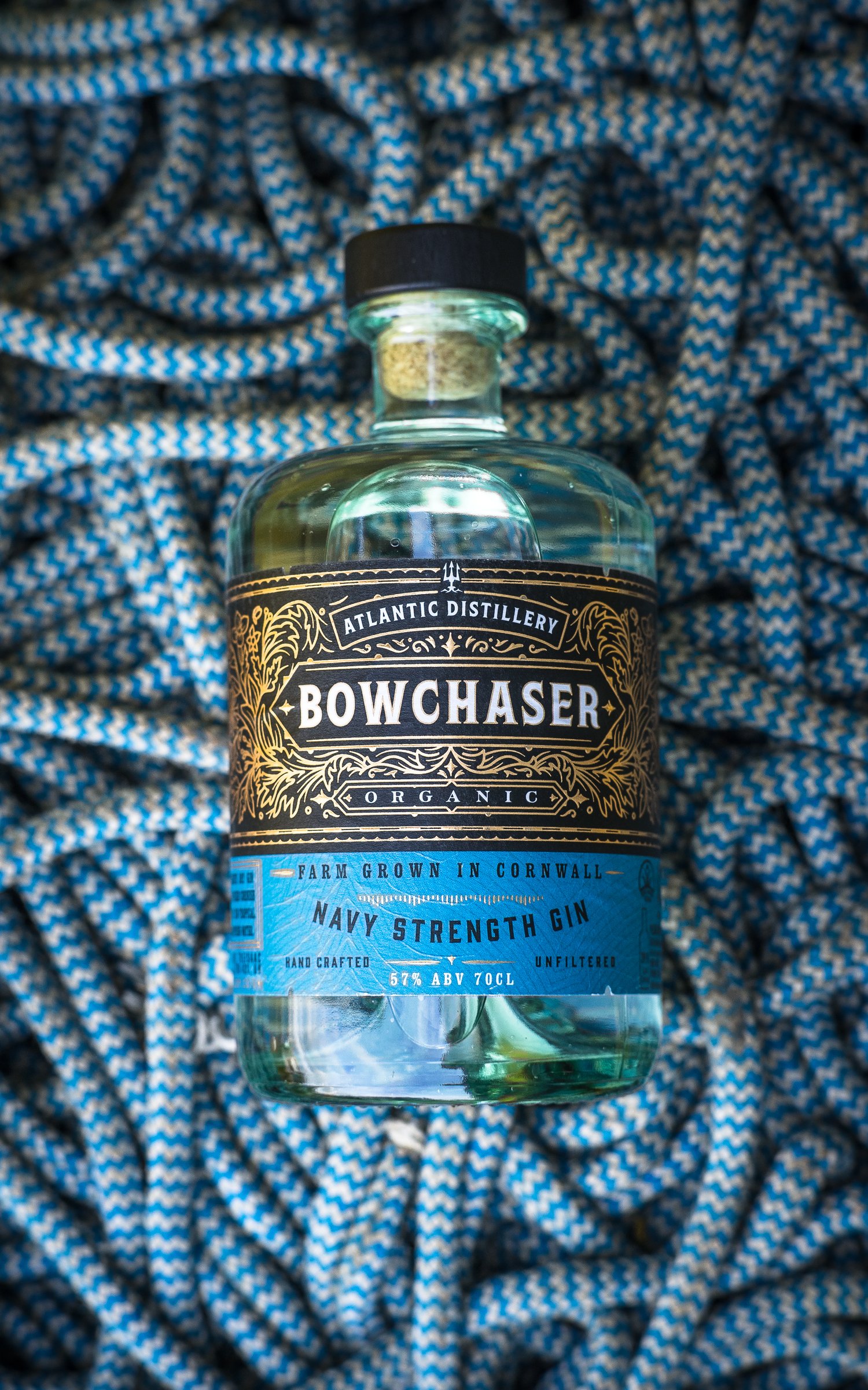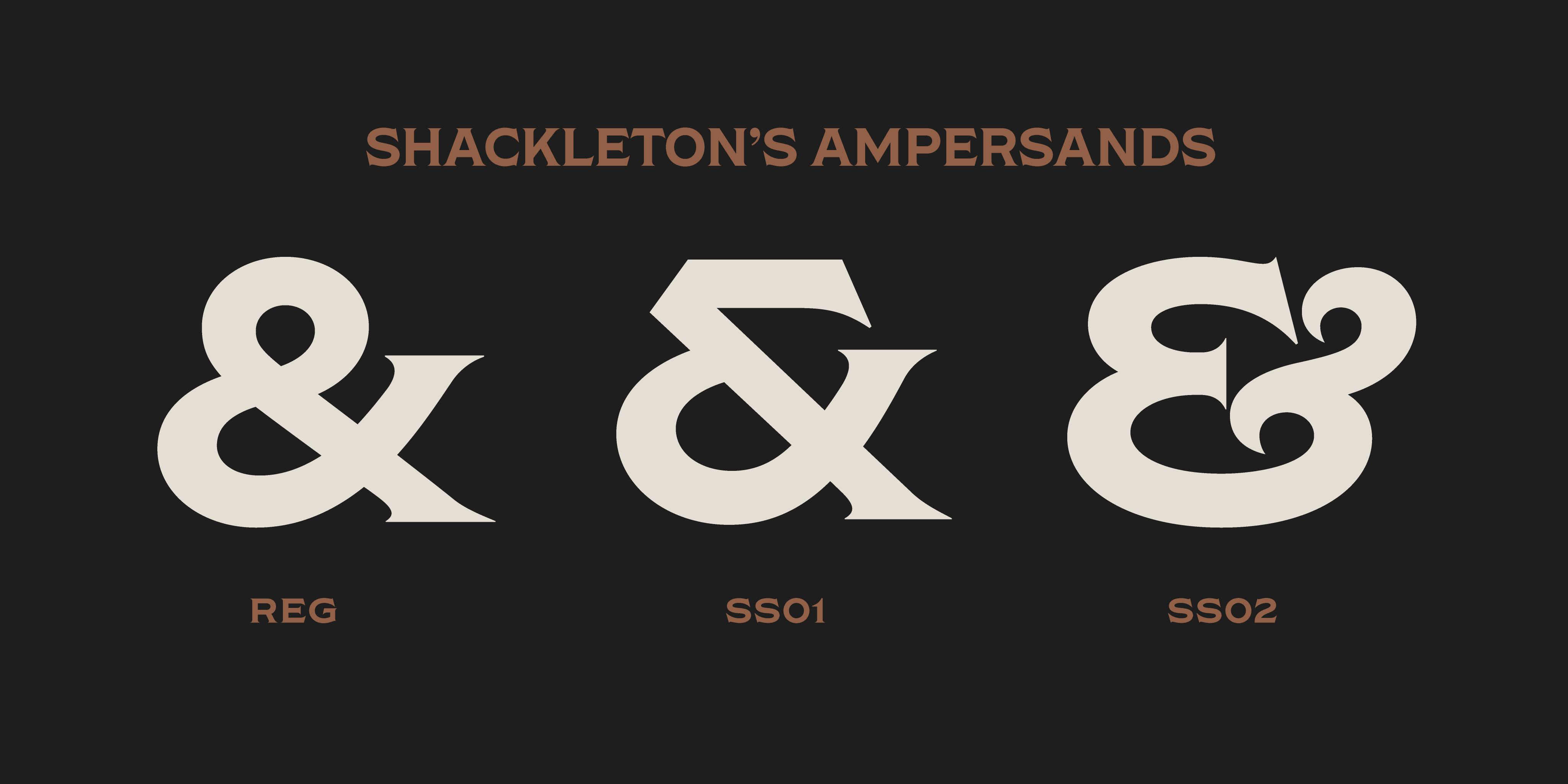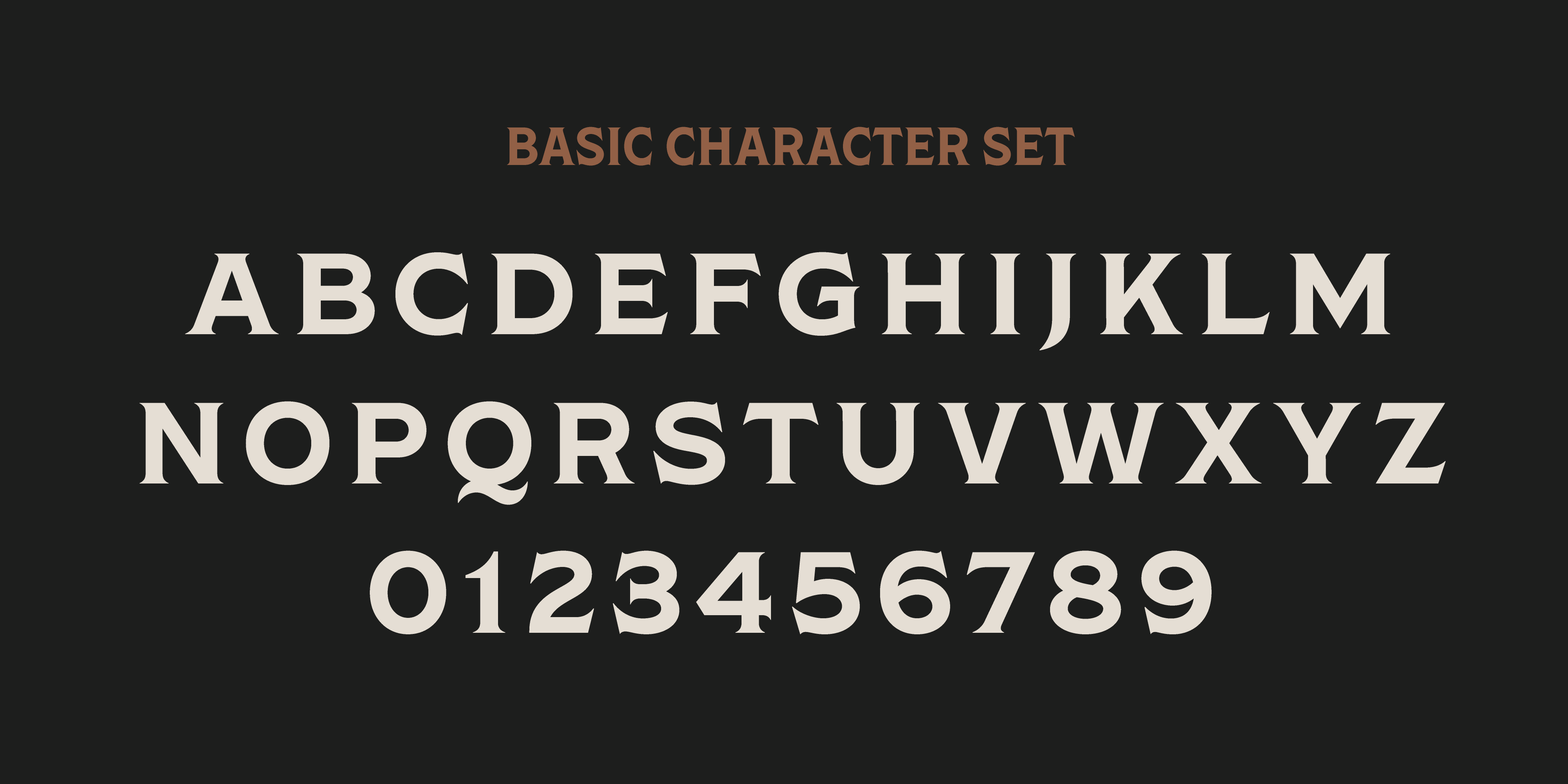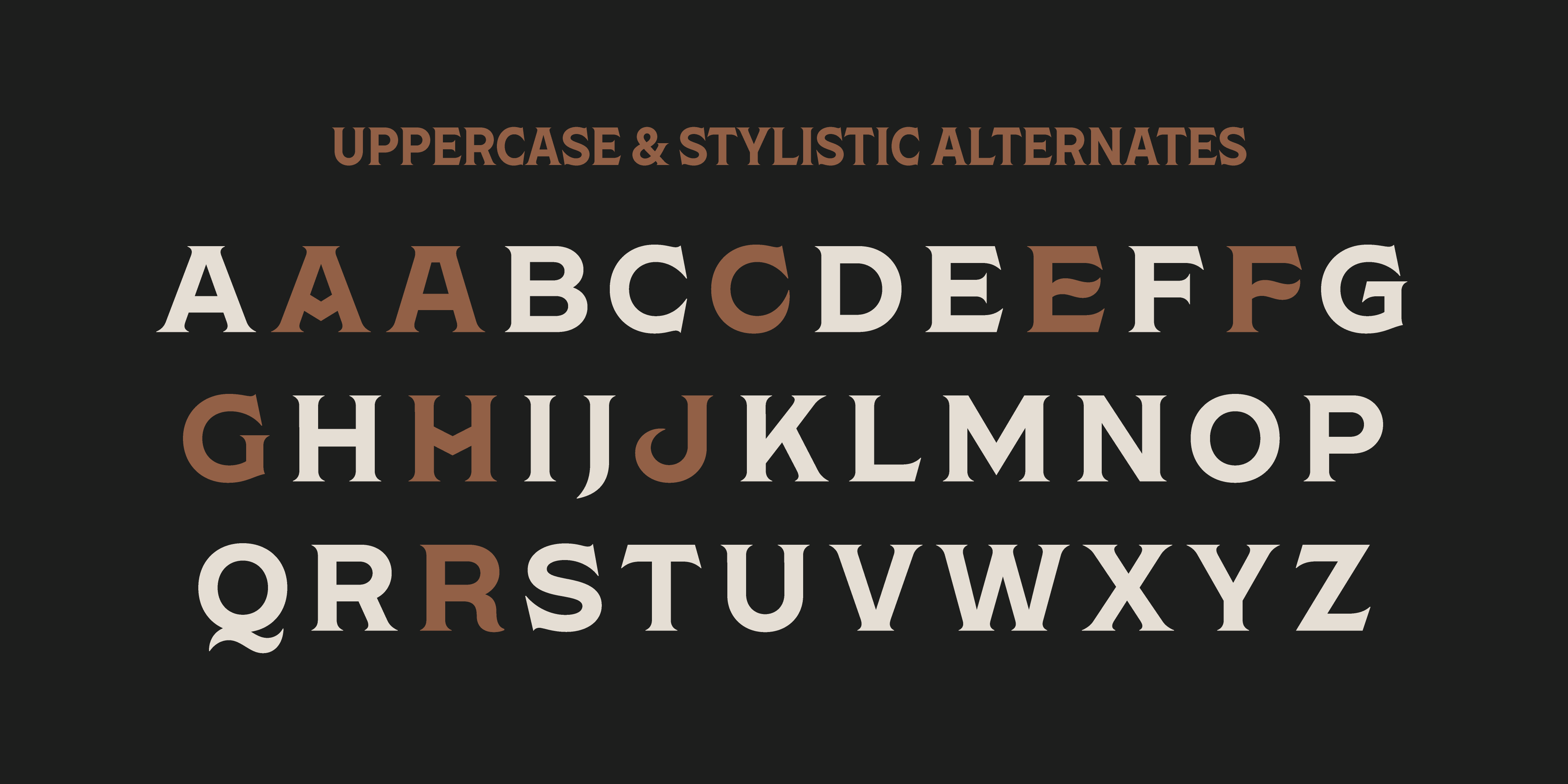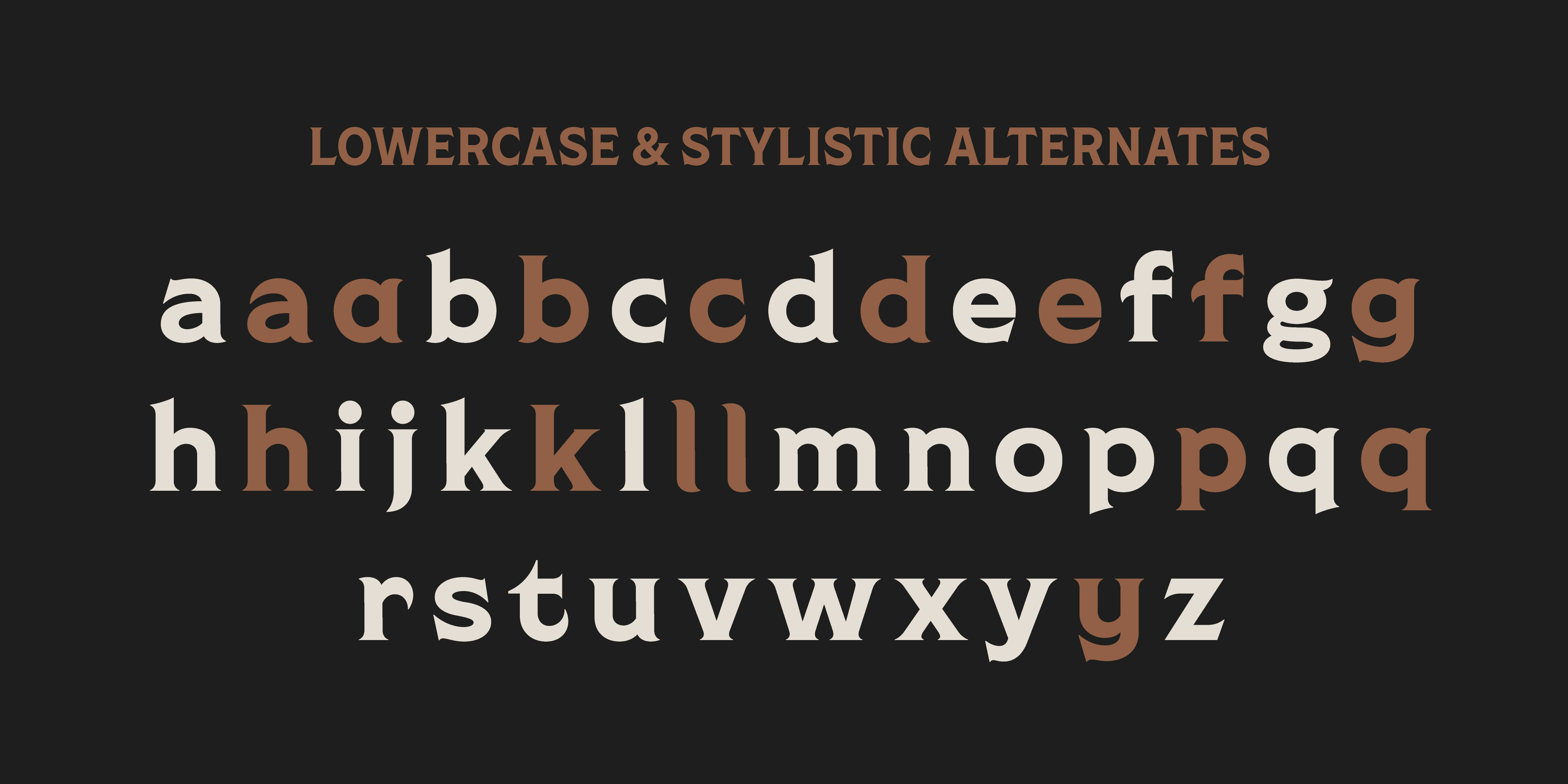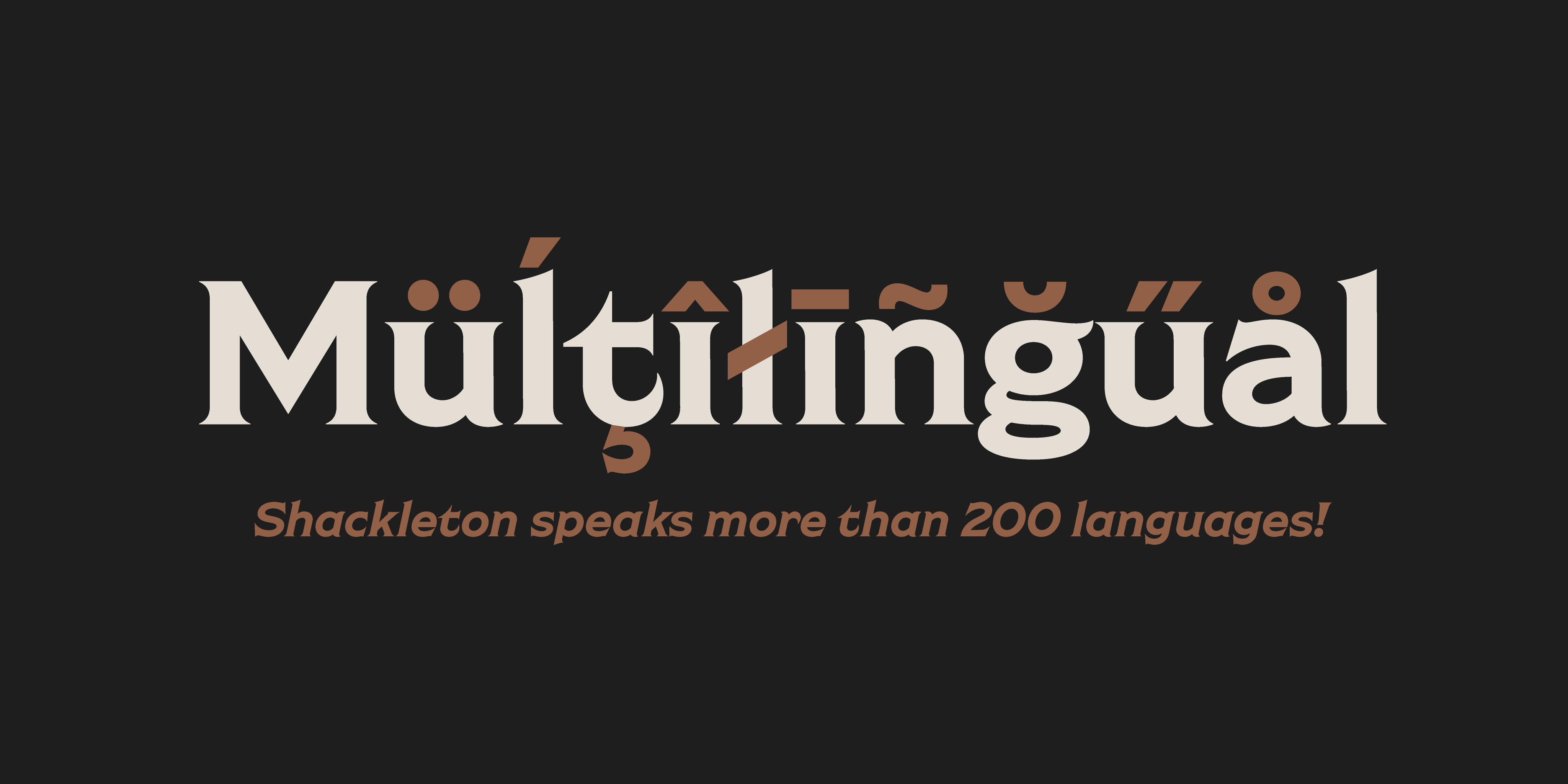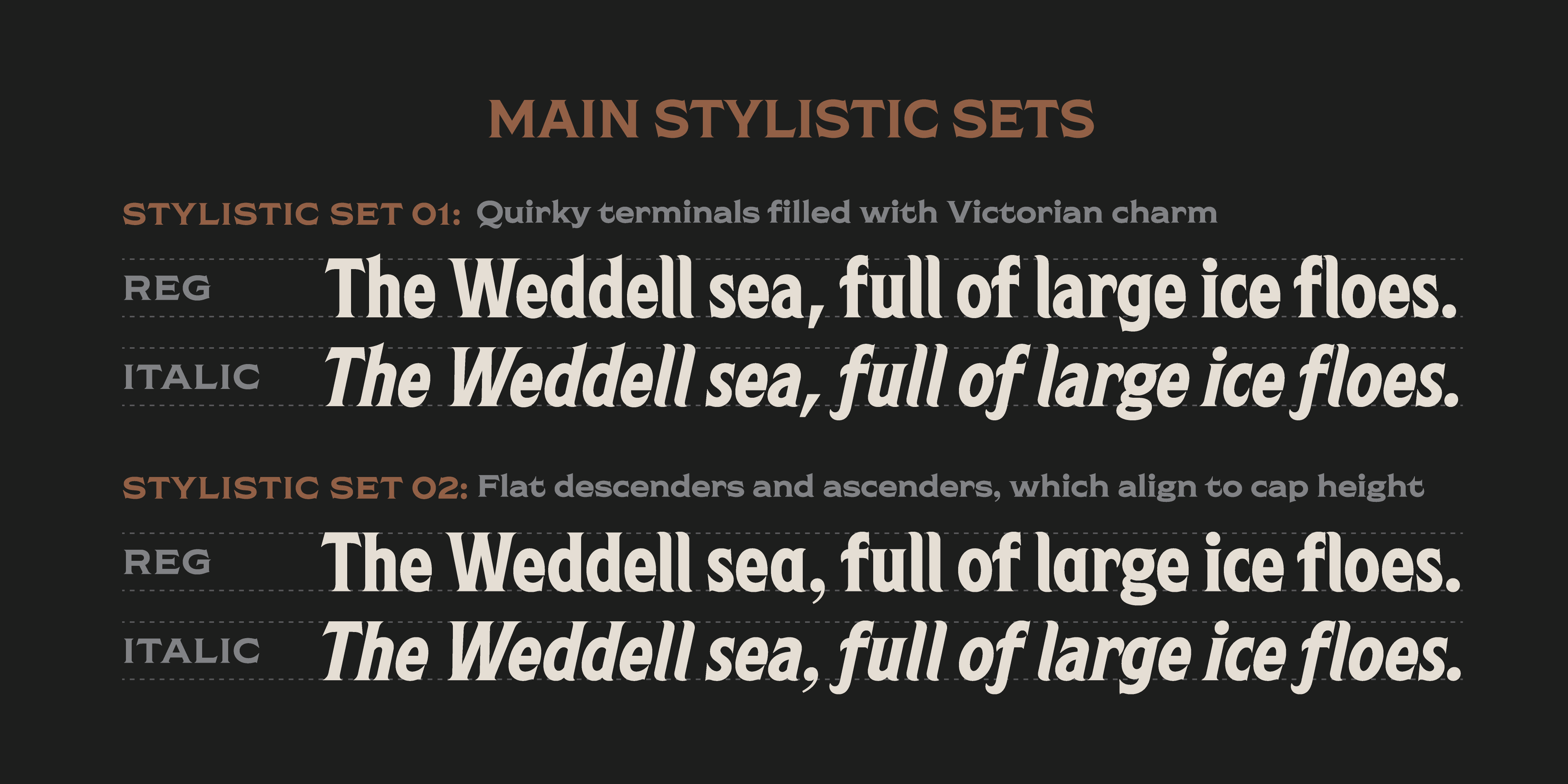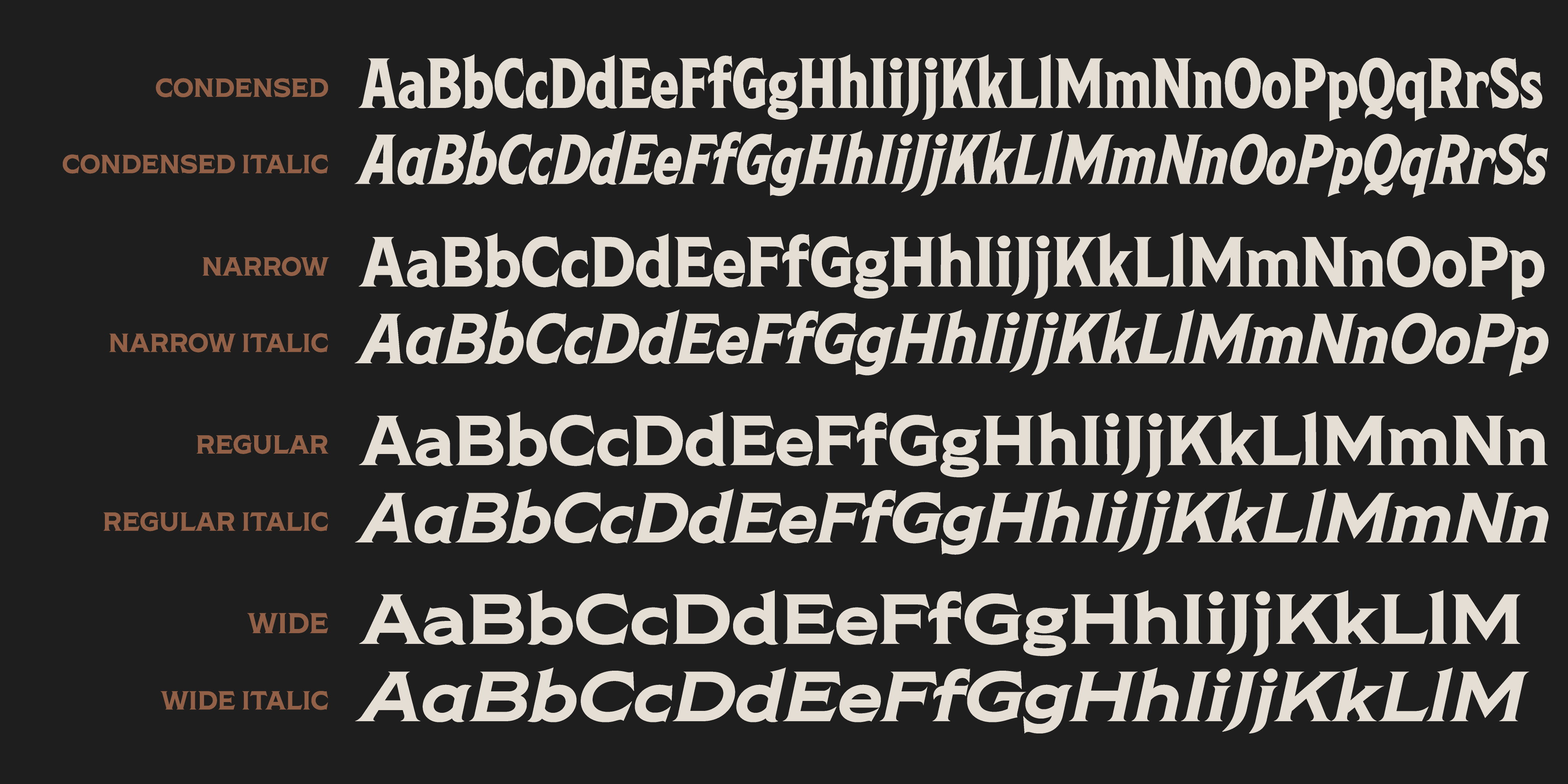
Shackleton
Serif • 8 Styles
Serif
8 Styles
Condensed
Condensed Italic
Narrow
Narrow Italic
Regular
Italic
Wide
Wide Italic
Uppercase Alternates
Lowercase Alternates
Ligatures
Ampersands
Special Symbols
Built for adventure and imbued with nostalgic charm.
Born in the Victorian era, Sir Ernest Shackleton was a polar explorer whose zenith came as the gilded age of his youth faded into the shadows of the 20th century. Shackleton and a crew of 27 men embarked on what would become one of the greatest, most heroic adventures of our time, the Imperial Trans-Antarctic Expedition. The Shackleton font family is inspired by the intrepid life and indomitable spirit of this polar pioneer. Its princely flared serifs preserve the gilded shards of the Victorian aesthetic, yet like its pioneering namesake, Shackleton is built to withstand the many rigors of an ever changing world.